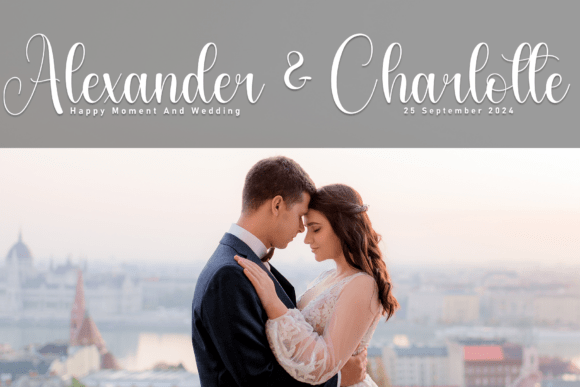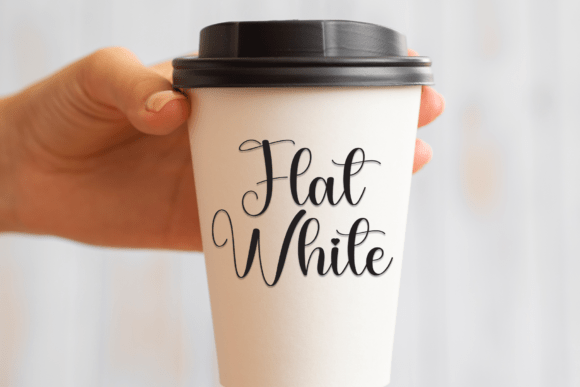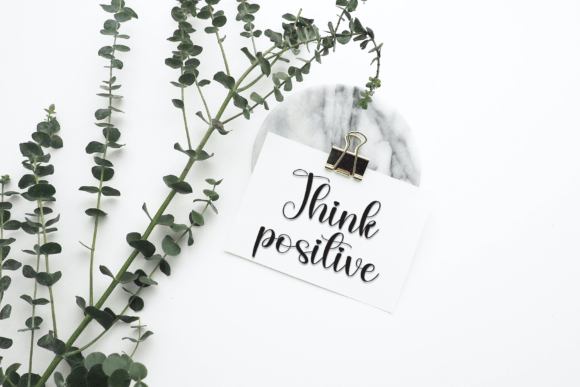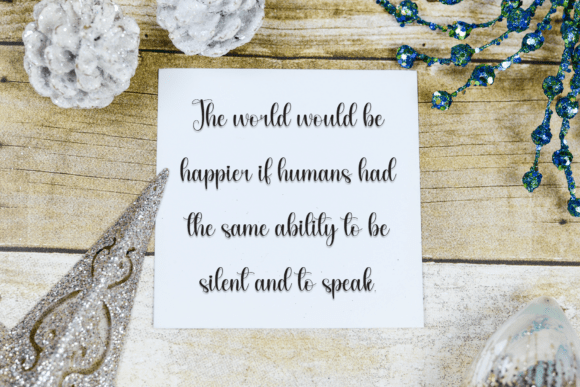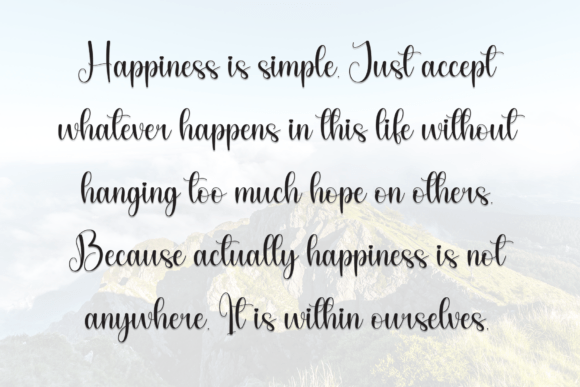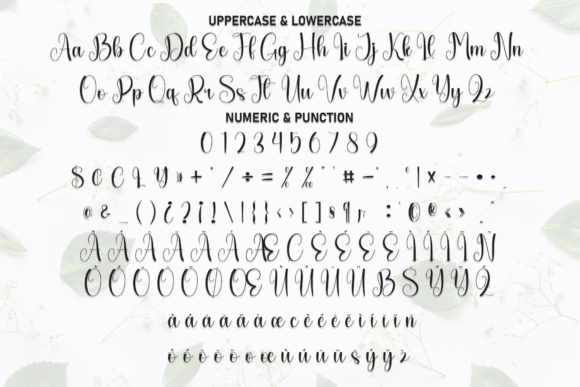
Introducing Anything Font: Elevate Your Designs with Elegance and Playfulness
In the world of typography, fonts play a crucial role in conveying the tone and personality of a brand, product, or message. For designers and crafters seeking to add a touch of sophistication and whimsy to their projects, the Anything Font is an excellent choice. This stylish handwritten script font is designed to capture the essence of elegance and playfulness, making it perfect for a wide range of applications.
The Characteristics of Anything Font
Anything Font boasts flowing curves and a natural rhythm, which give it a unique and charming personality. Its handwritten script style is both elegant and approachable, making it suitable for various design projects, from formal invitations to social media graphics. The font’s graceful design brings warmth and sophistication to any project, allowing designers to create visually appealing and engaging content.
Perfect for Invitations, Branding, and Social Media
Anything Font is an excellent choice for designers and crafters working on invitation designs, branding projects, and social media graphics. Its charming and personal touch makes it ideal for:
- Wedding Invitations: Add a touch of elegance and romance to your wedding invitations, save-the-date cards, and other wedding-related designs.
- Branding: Use Anything Font to create a unique and recognizable brand identity that exudes sophistication and playfulness.
- Social Media Graphics: Elevate your social media presence with eye-catching graphics, quotes, and posts that showcase your personality and style.
What Makes Anything Font Stand Out?
Anything Font stands out from other fonts due to its unique combination of elegance, playfulness, and versatility. Here are some key features that make it an excellent choice for designers and crafters:
- Handwritten Script Style: Gives your designs a personal and charming touch.
- Flowing Curves: Creates a natural rhythm that adds warmth and sophistication to your projects.
- Elegant and Playful: Perfectly balances elegance and playfulness, making it suitable for a wide range of design projects.
- Highly Versatile: Can be used for various design applications, from invitations and branding to social media graphics.
Tips for Using Anything Font Effectively
To get the most out of Anything Font, here are some tips to keep in mind:
- Pair with Complementary Fonts: Combine Anything Font with complementary fonts to create visual interest and hierarchy in your designs.
- Experiment with Colors: Try different color combinations to find the perfect match for your brand or design project.
- Play with Sizes: Use varying font sizes to create emphasis and add visual interest to your designs.
- Keep it Simple: Don’t over-accessorize your designs – let the font speak for itself and shine.
Anything Font is a stylish and versatile handwritten script font that can elevate your designs with elegance and playfulness. Its unique combination of flowing curves, natural rhythm, and charming personality makes it perfect for invitations, branding, social media graphics, and more. By incorporating Anything Font into your design projects, you’ll add a personal touch that will make your work stand out and leave a lasting impression.
Get Creative with Anything Font